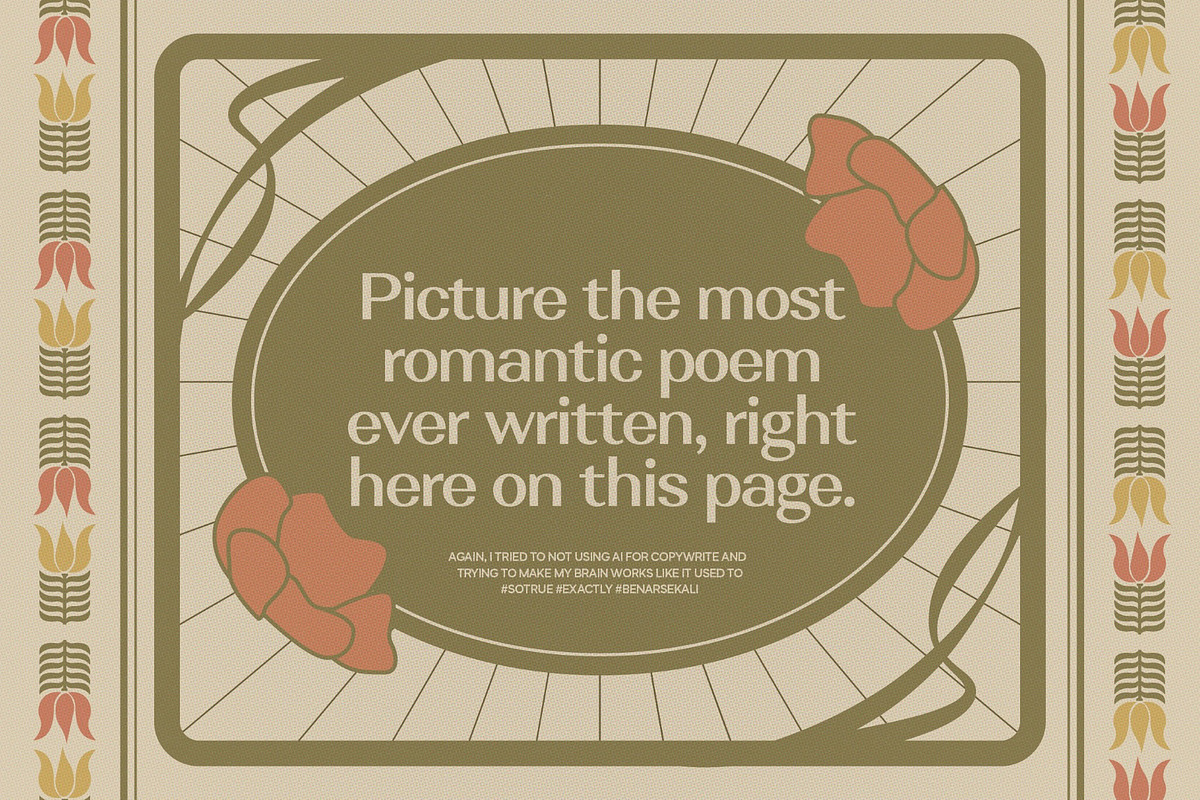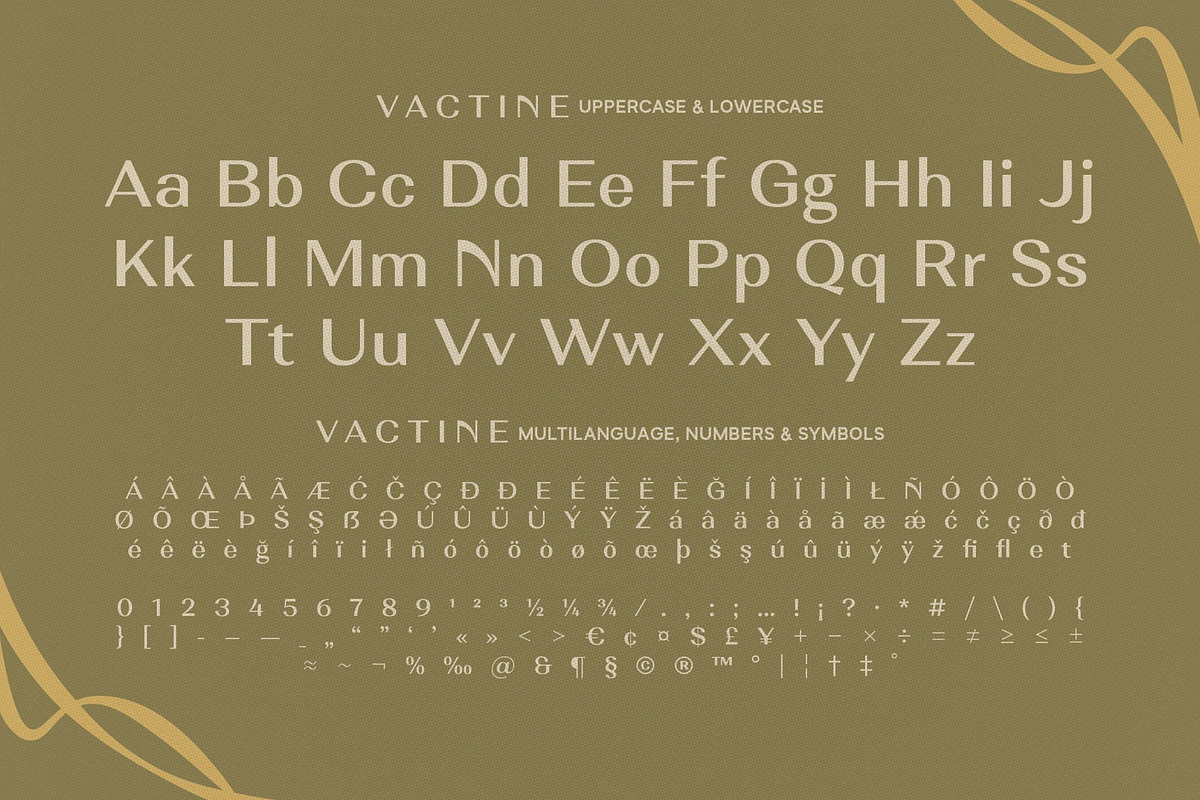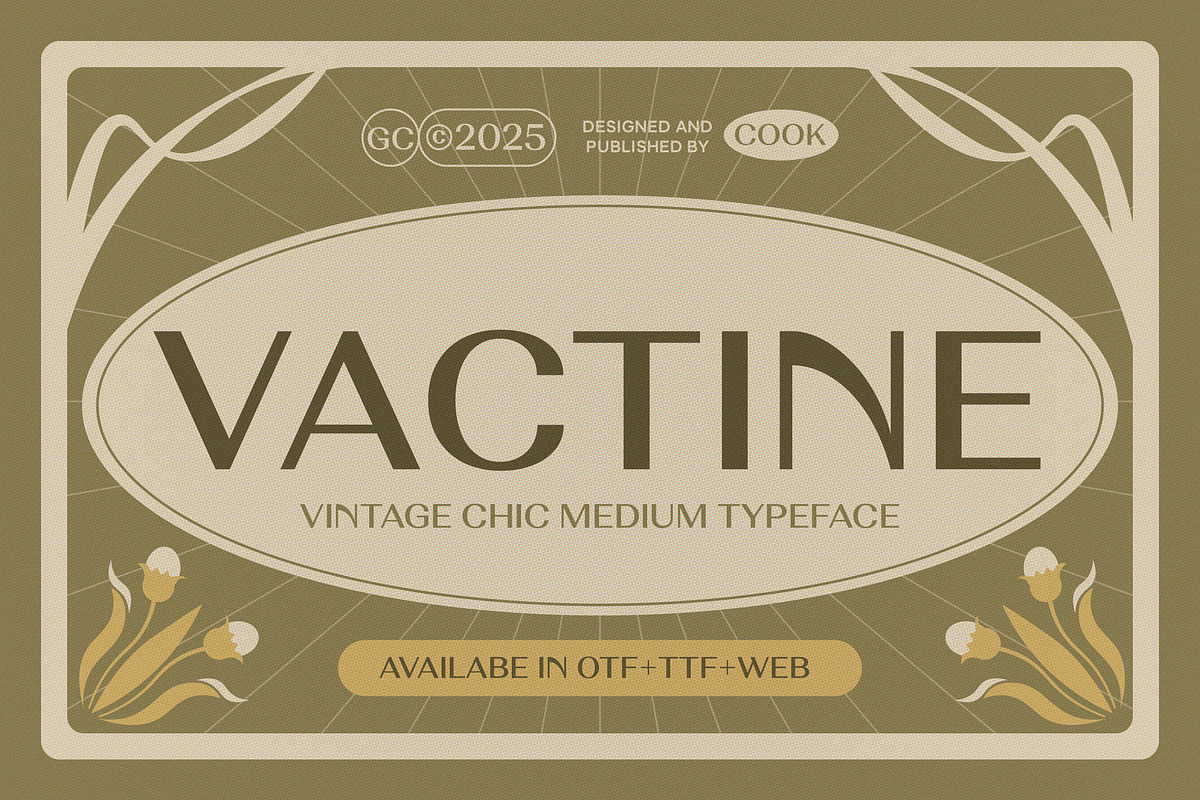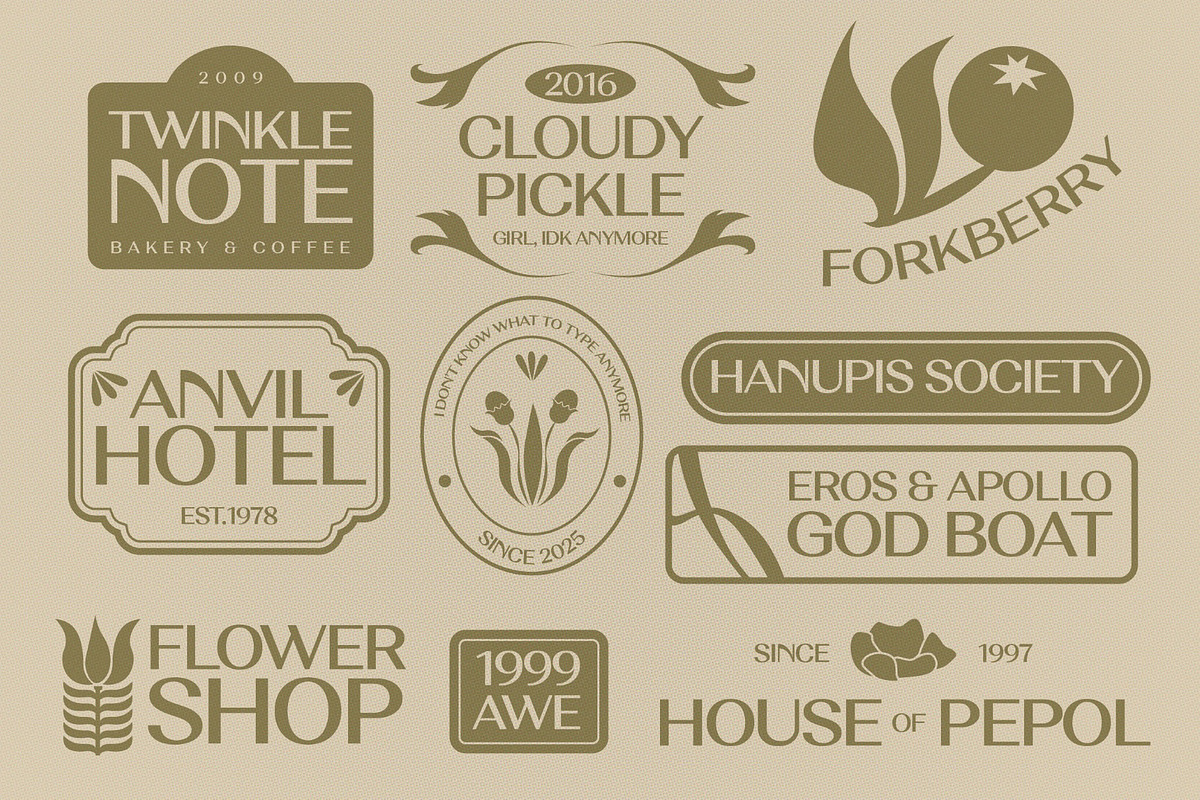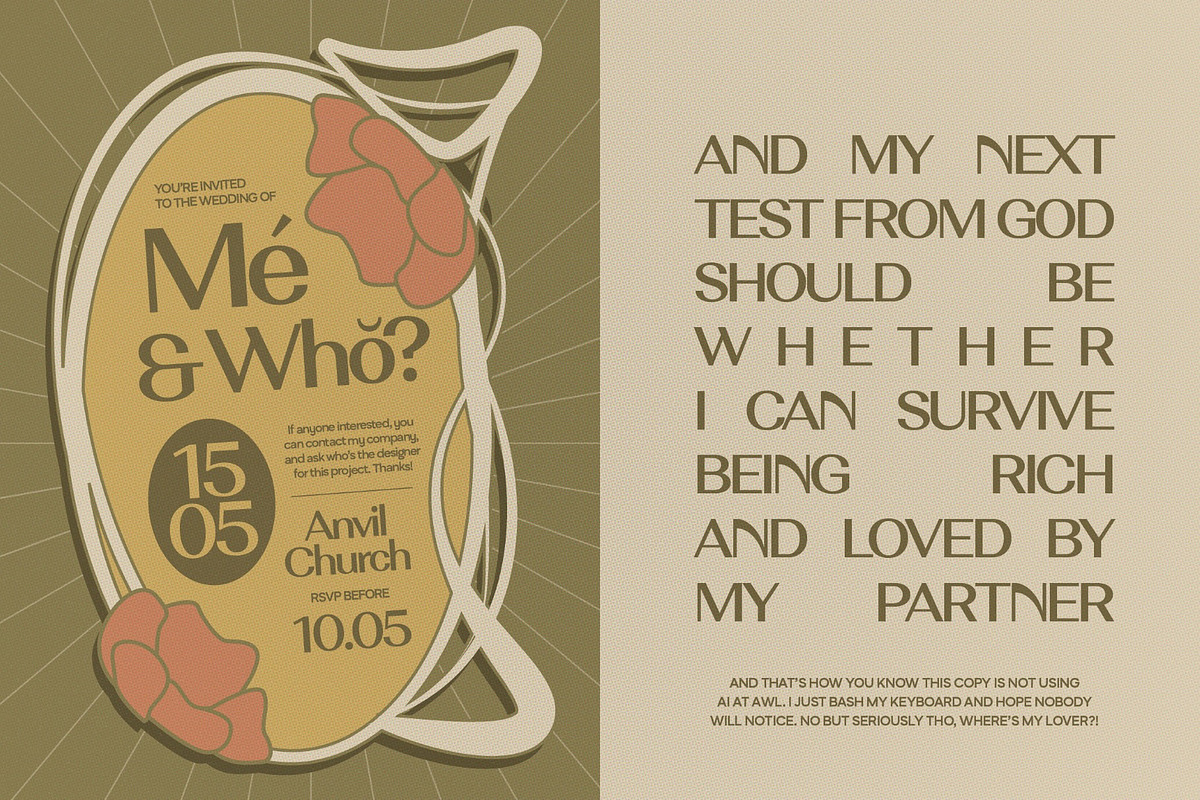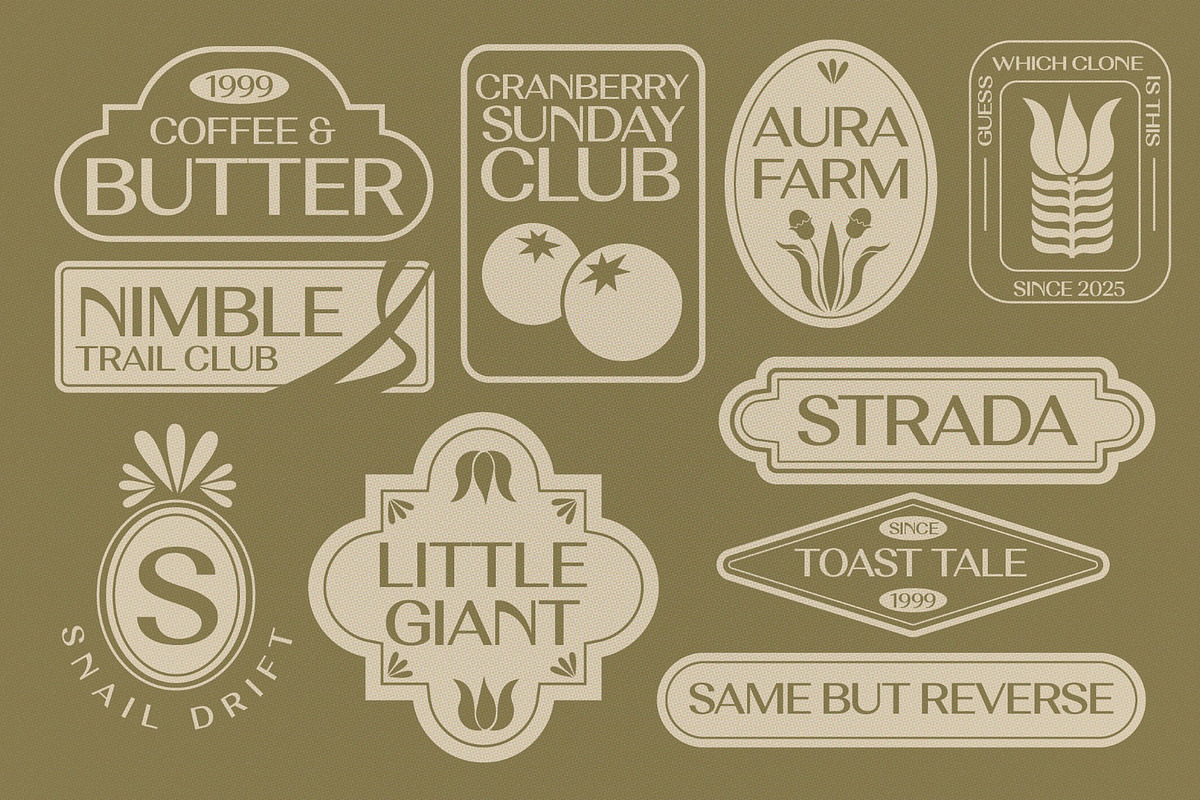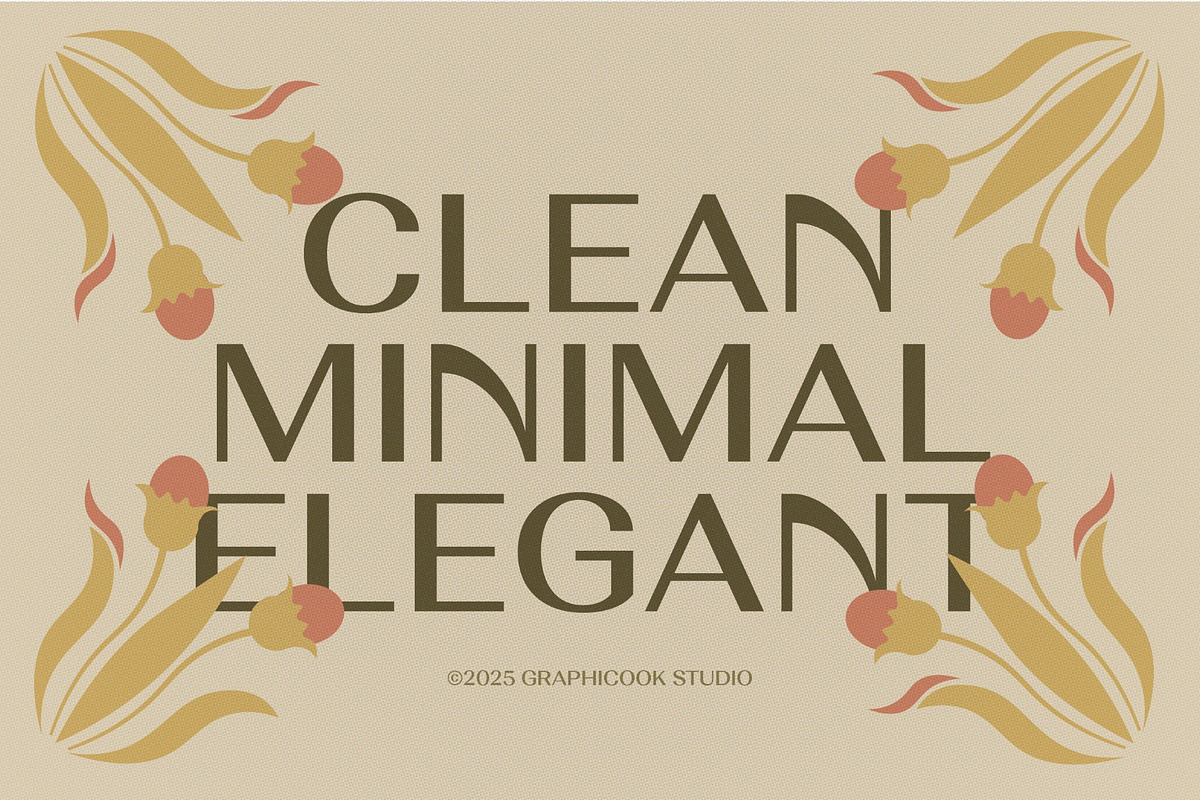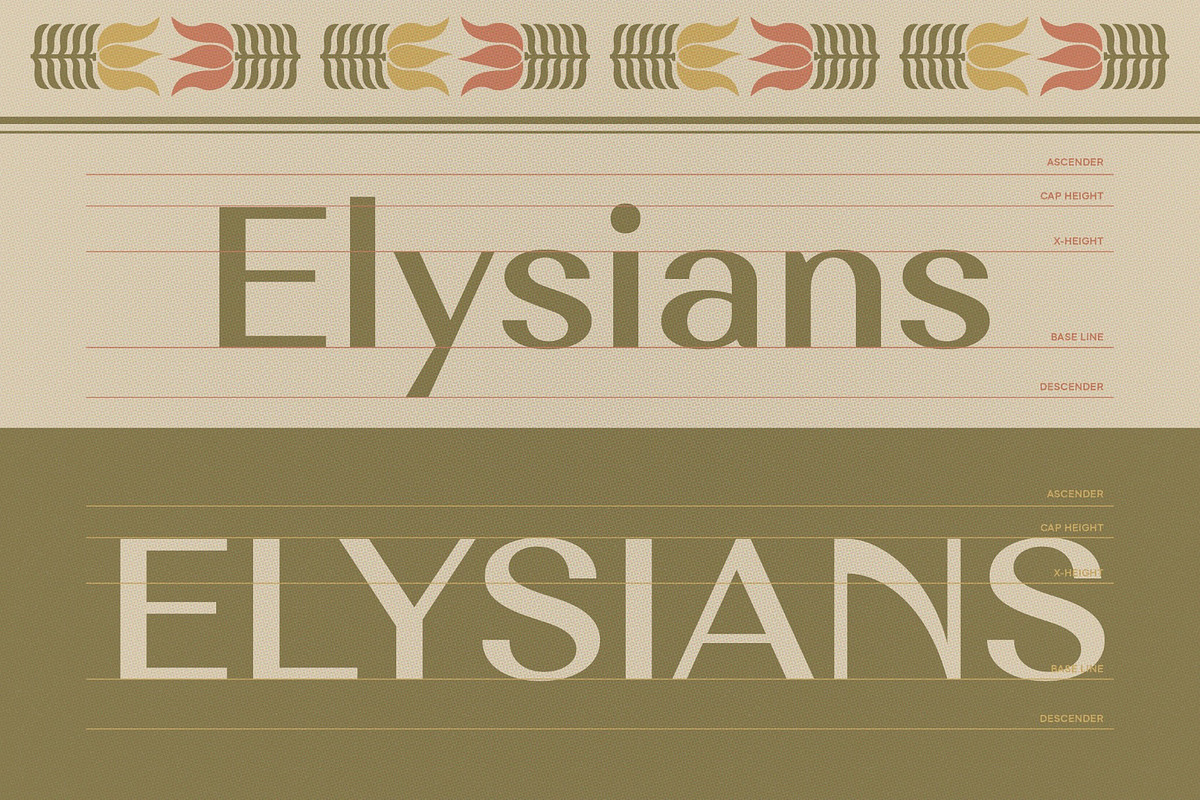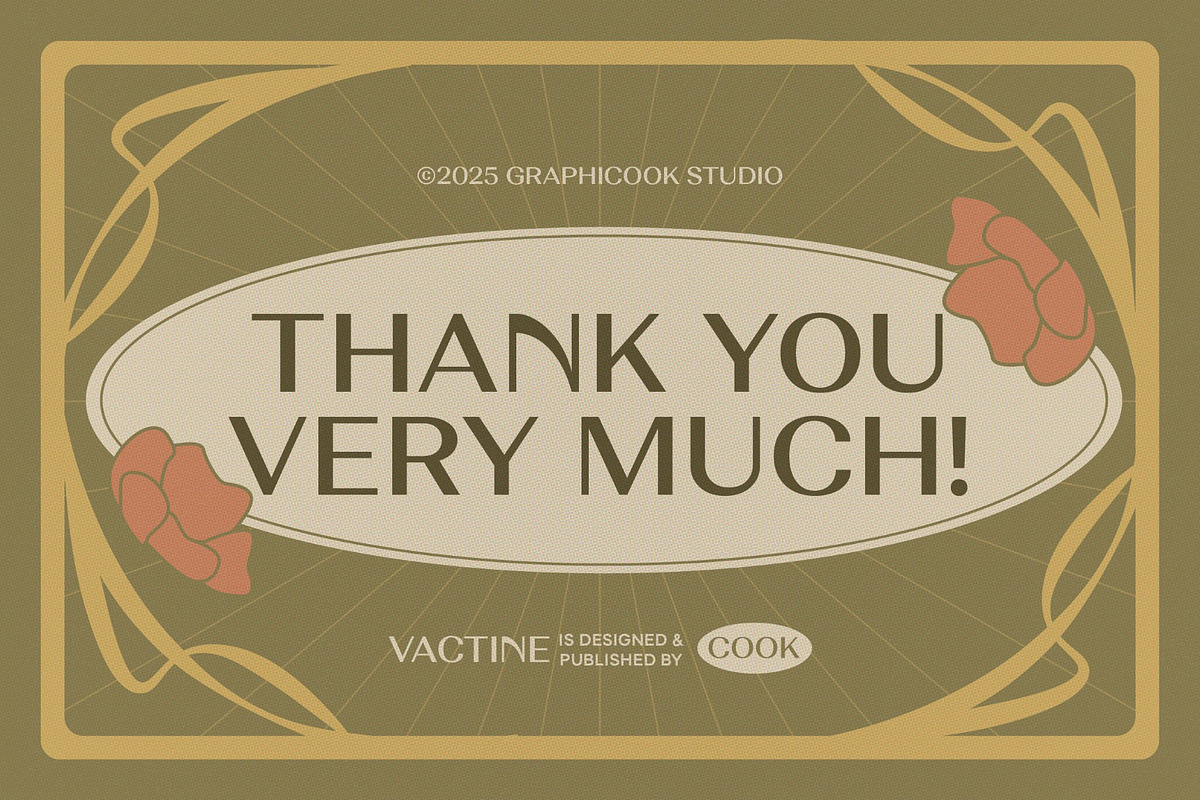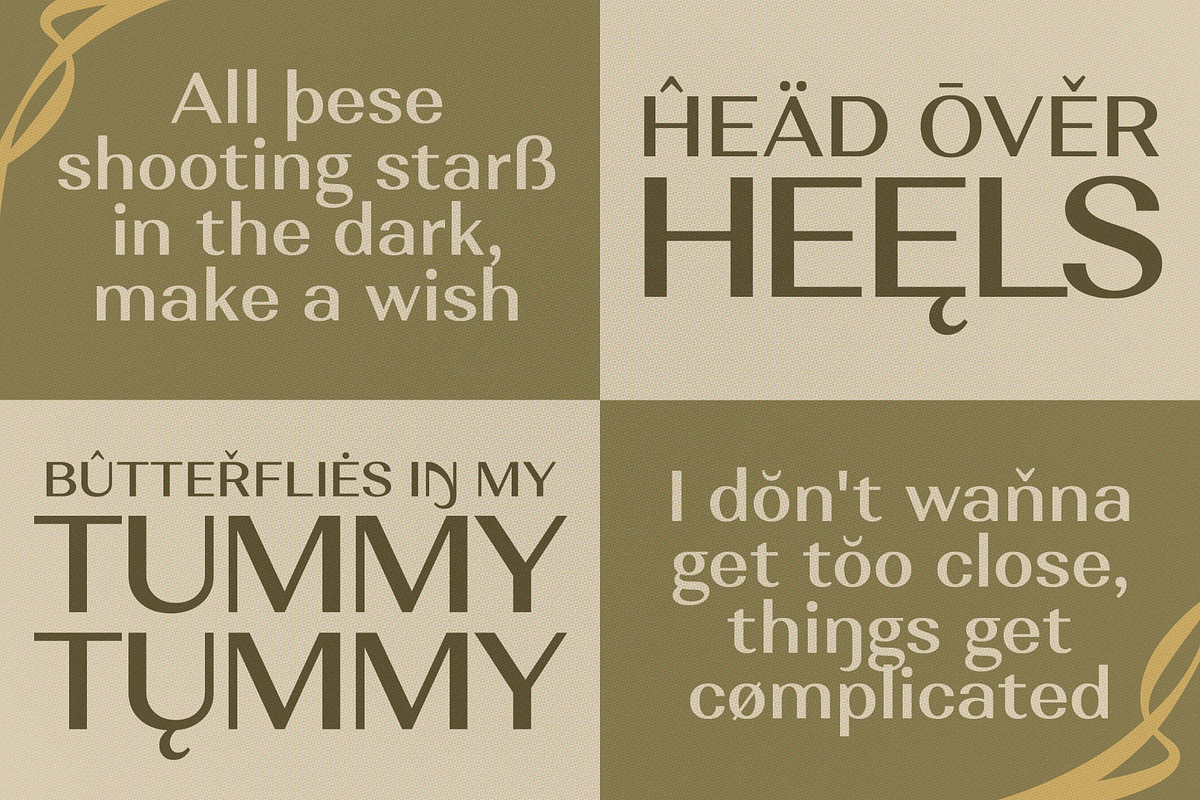
Vactine
Vactine is a vintage-chic typeface with a medium weight that strikes a balance between classic elegance and modern sophistication. Ideal for designs seeking a timeless yet contemporary aesthetic.
It is perfect for headlines, logotypes, magazines, packaging, quotes, movies, games, cover albums, book covers, and flyers, it's a perfect solution for creating eye-catching designs that stand out in any context.